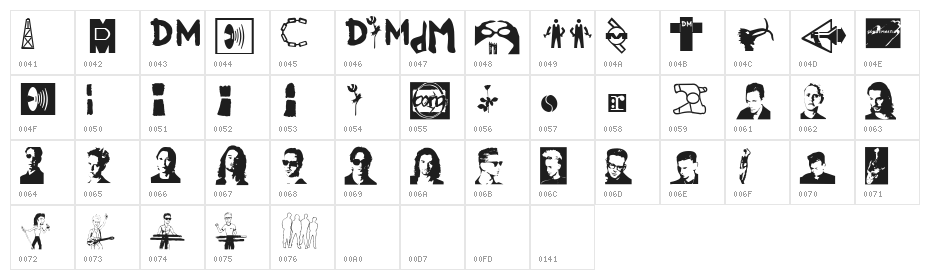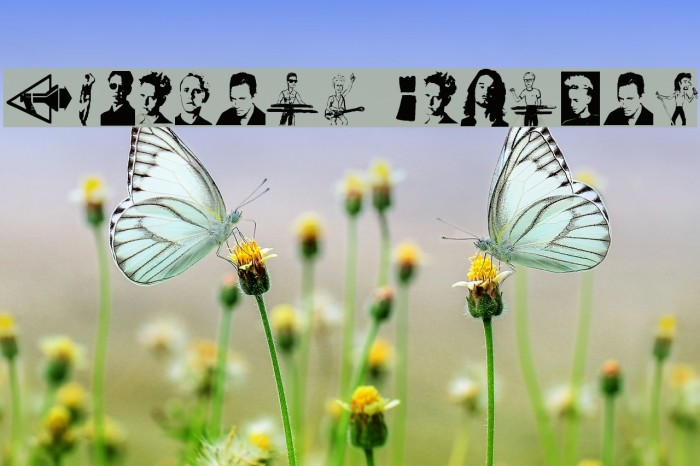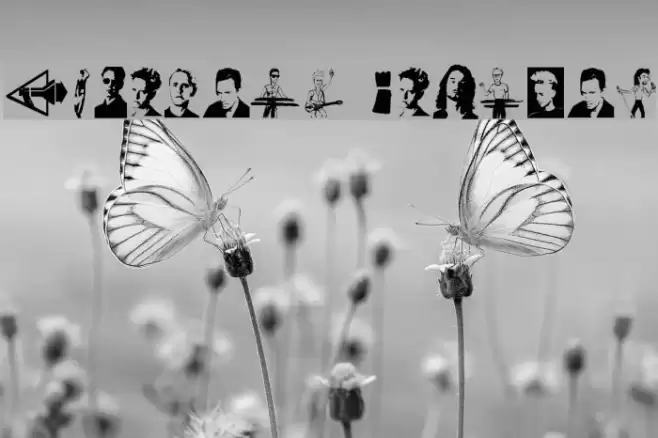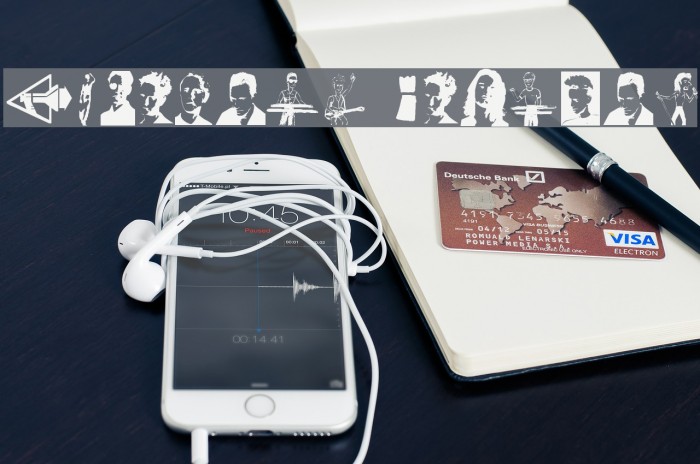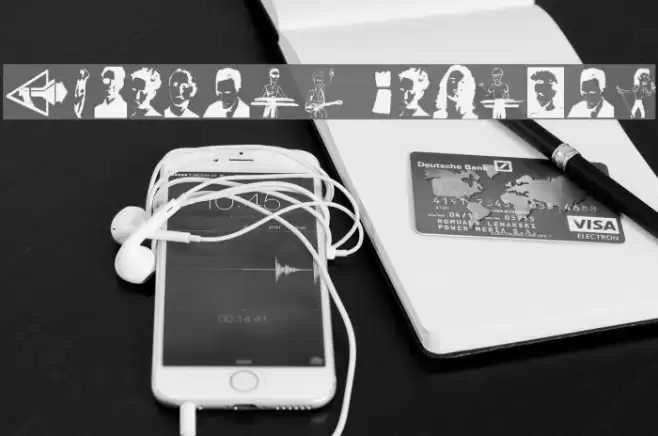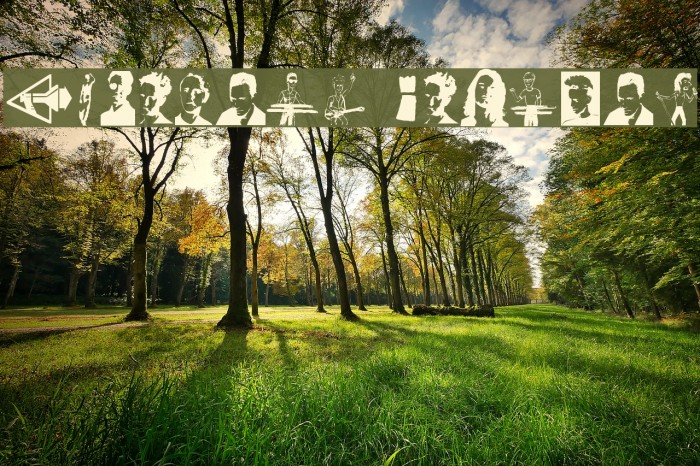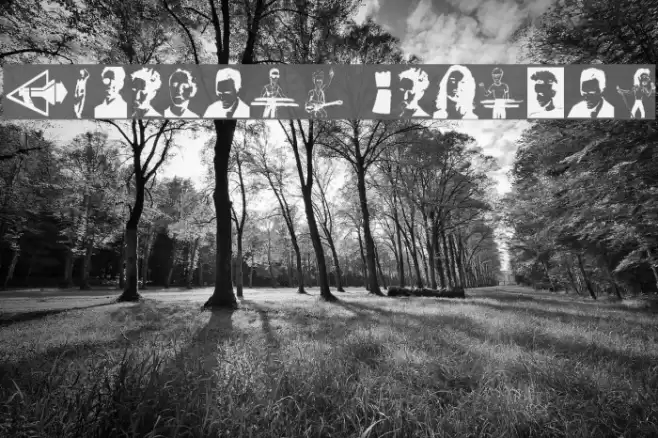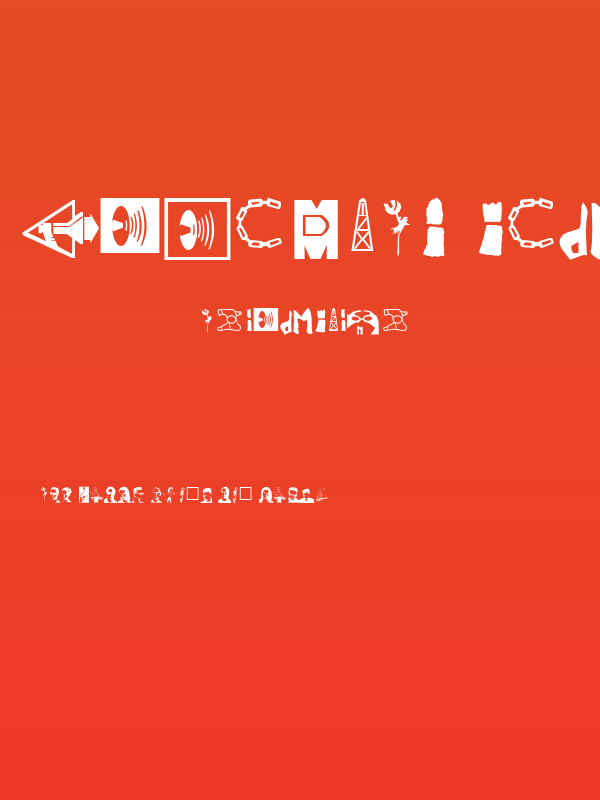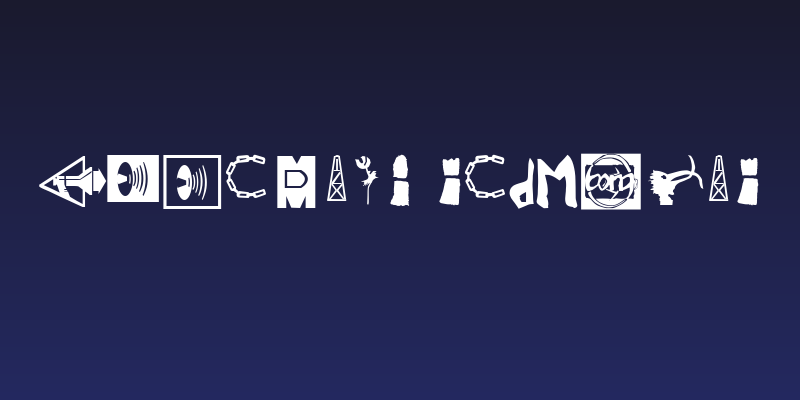
Modebats Regular Font
Modebats Regular Description
This is not a traditional font but rather a collection of pictograms and symbols. The characters are represented by various icons and images, including abstract shapes, silhouettes, and recognizable figures. The style is eclectic and decorative, with each character offering a unique visual representation rather than a standard letterform. This set is more suited for creative and artistic projects where symbolic representation is desired over textual content.
| Use Case | Logos, Artistic designs, Posters |
| Proposed Projects | Ideal for artistic designs, themed posters, creative branding, and unique visual projects where symbolic imagery is preferred. |